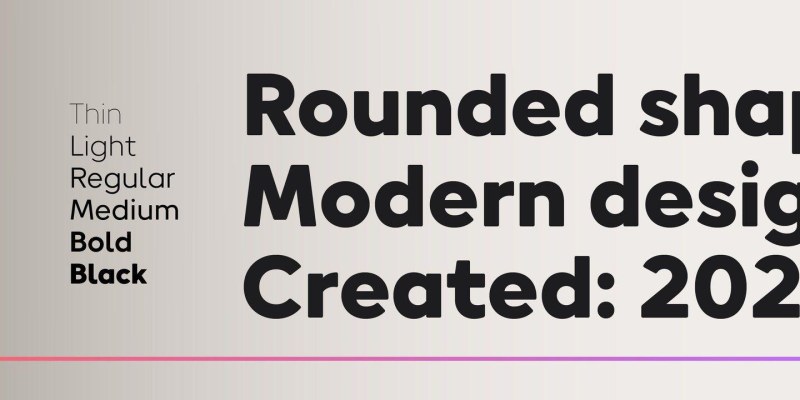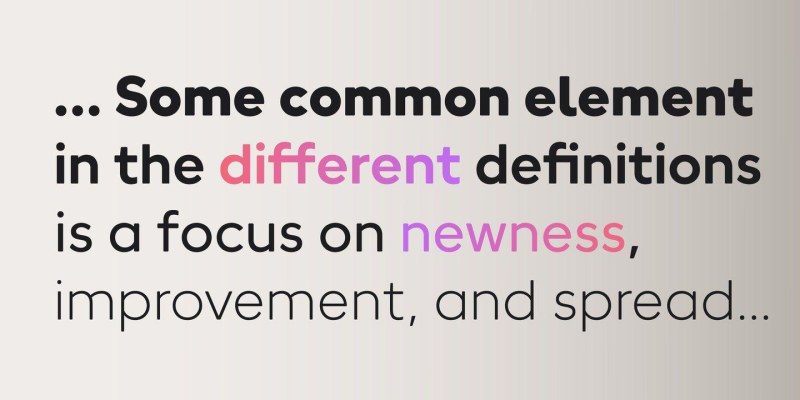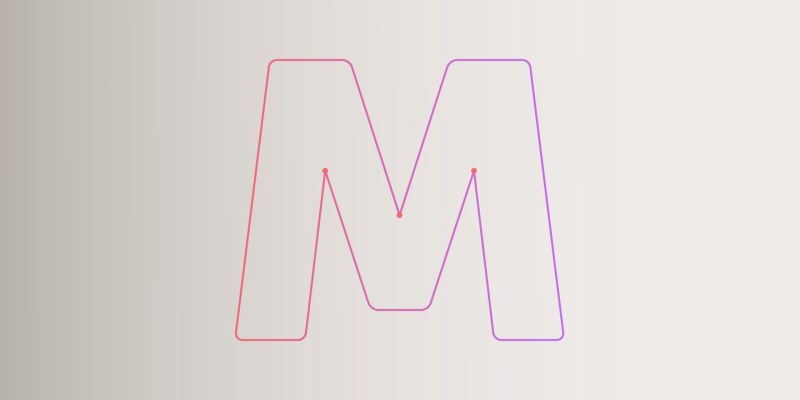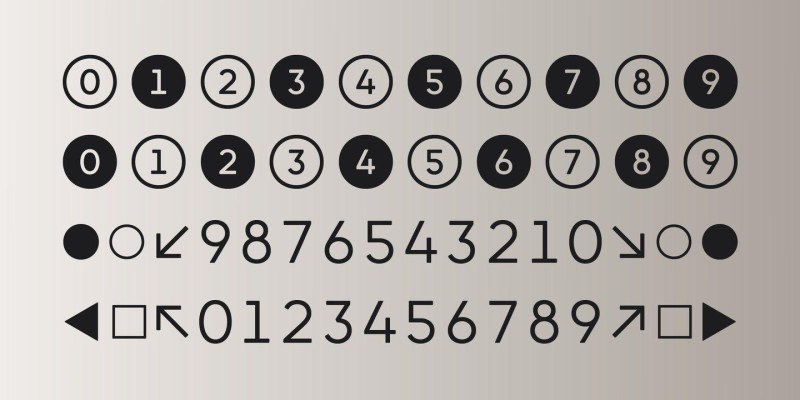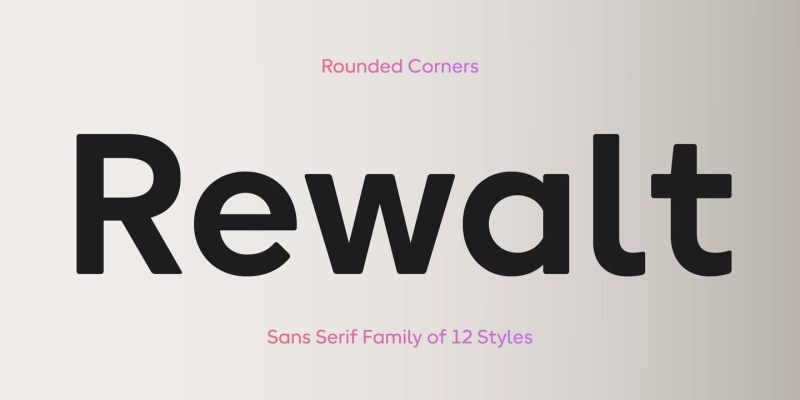
Rewalt Font Family
Rewalt family is perfectly suited to headlines, logotypes, books, magazines, motion graphics, and use on the web and TV. Rewalt is an OpenType font family that converts any text – including the most complex layouts – into an expressive design. This font is a modern rounded sans serif typeface that can be used as a headline or as a body copy typeface.
Rewalt Font Family is a Sans Serif Fonts font that brings a professional and versatile look to your projects. Rewalt family is perfectly suited to headlines, logotypes, books, magazines, motion graphics, and use on the web and TV.